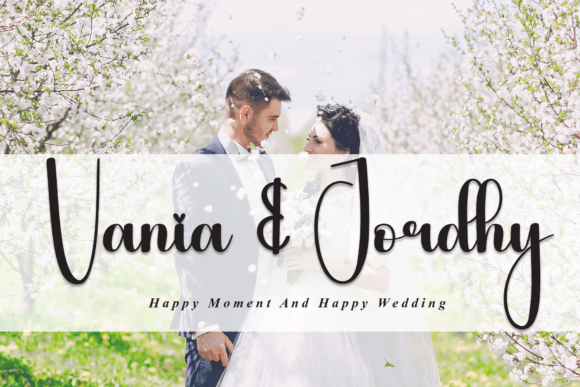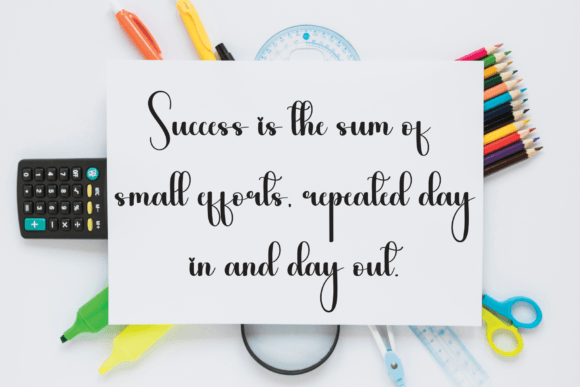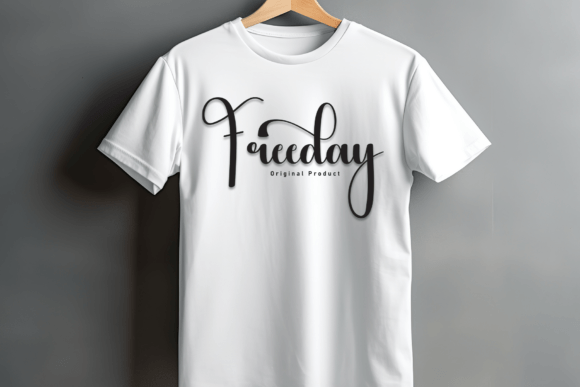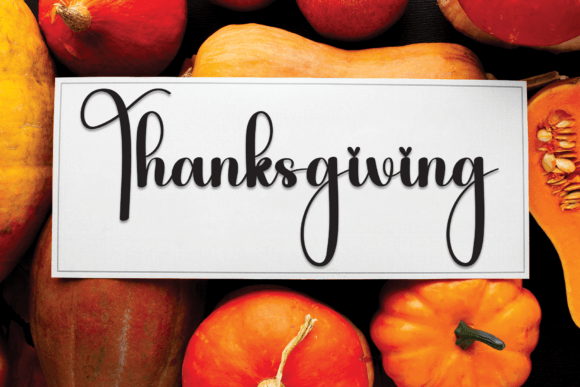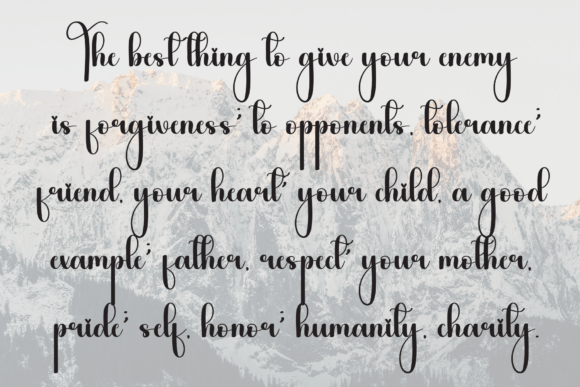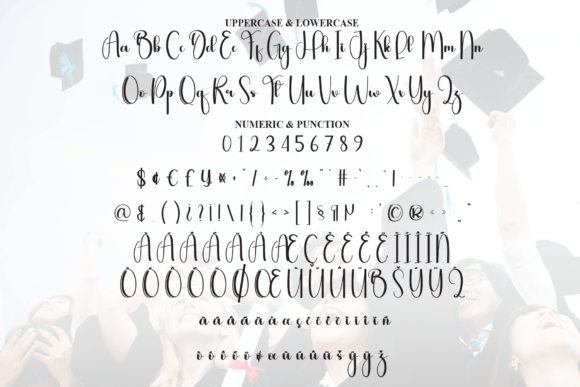
Introducing the Perfect Blend of Sweetness and Playfulness: Graduation Font
As designers, we’ve all been there – staring at a blank canvas, trying to come up with the perfect way to express a special moment. Maybe it’s a wedding invitation, a birthday card, or a graduation announcement. Whatever it is, the goal is always the same: to make it truly unforgettable.
That’s where the Graduation Font comes in – a charming, personable handwritten display font that adds a touch of warmth and appeal to any design. With its unique personality and delightful character, this font is the perfect way to bring a little extra fun and creativity to your projects. Whether you’re a seasoned designer or just starting out, the Graduation Font is a valuable addition to your toolkit.
Graduation Font Key Features
- Unique Characteristics: Graduation Font features a unique, hand-drawn design with subtle variations in letterform size and spacing, creating a dynamic and celebratory feel.
Graduation Font Review
I recently had the chance to work with the “Graduation Font” and I must say it’s a decent option for a specific use case. ✨ One thing that really stands out is its playful and celebratory feel, making it perfect for graduations, parties, or other festive events. The font’s unique design elements, such as the curved lines and bubbly texture, add to its charm.
However, I do have some reservations about its limitations. ⚠️ For one, the font can be quite difficult to read in smaller sizes or when used for extensive blocks of text. Additionally, its bold and playful nature can sometimes feel overwhelming or too loud, making it less suitable for more formal or professional applications.
In terms of versatility, the font falls short. It’s mainly designed for display purposes, such as headings or titles, and doesn’t work well for body text. It’s also worth noting that the font’s design can be a bit too whimsical for some users’ taste.
Overall, I’d say the “Graduation Font” is a fun and creative option for specific projects, but it may not be the best choice for more general use. If you’re looking for a font that’s perfect for celebratory events, this might be a good choice. But for everyday use, you might want to consider other options.
- Works well for display purposes (headings, titles, etc.)
- Perfect for celebratory events (graduations, parties, etc.)
- Unique design elements add to its charm
- Difficult to read in smaller sizes or for extensive text
- Too bold and playful for formal or professional applications
- Limited versatility
Some common use cases for Graduation Font include:
– Creating graduation invitations and announcements.
– Designing graduation certificates and diplomas.
– Adding a celebratory touch to graduation-themed graphics and illustrations.
Can I customize the color and style of Graduation Font, or is it fixed?
Yes, Graduation Font is fully customizable, allowing you to change the color, size, and style to suit your design needs. You can also adjust the cap shape and other design elements to create a unique look. The font is designed to be highly flexible, making it easy to integrate with your brand identity and design style.